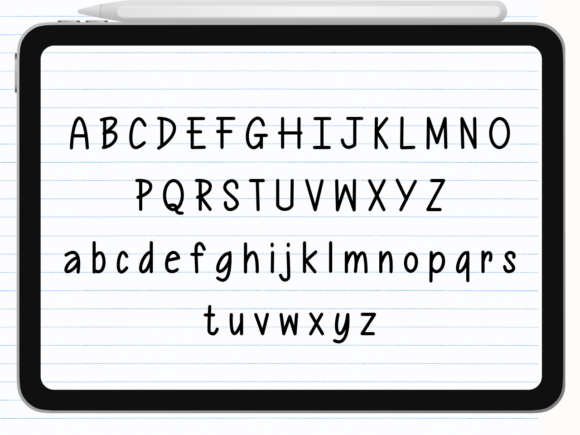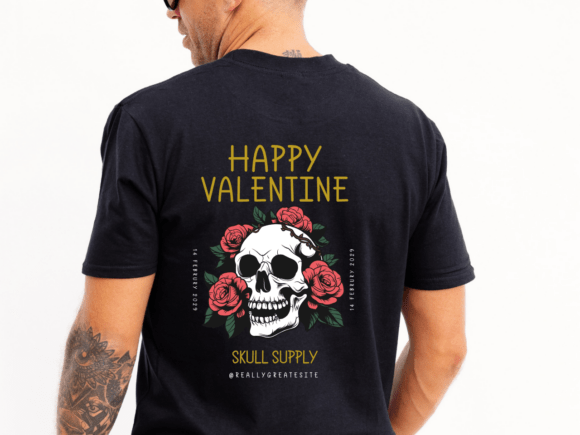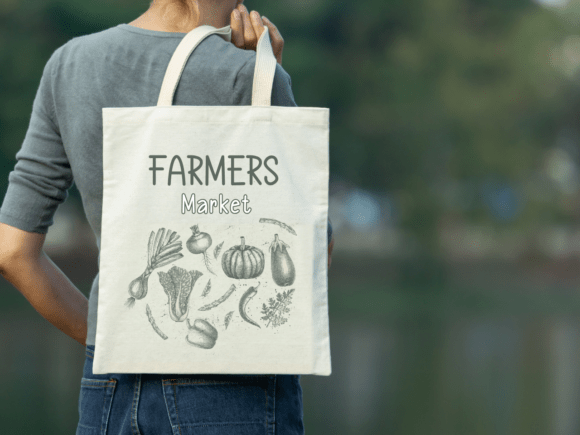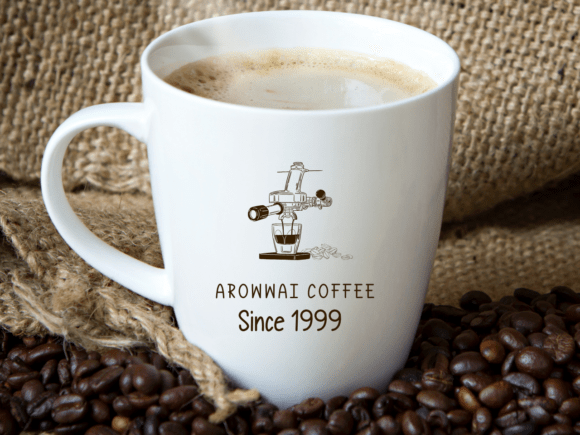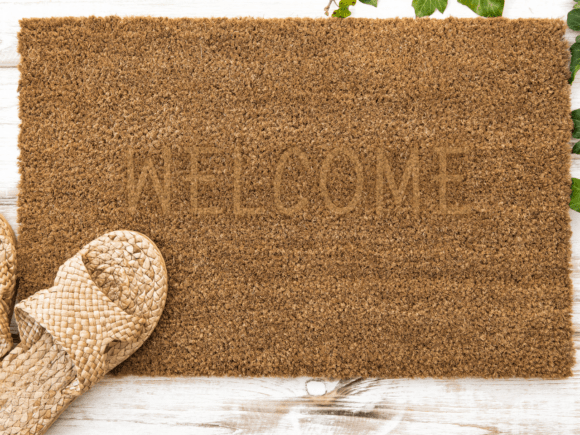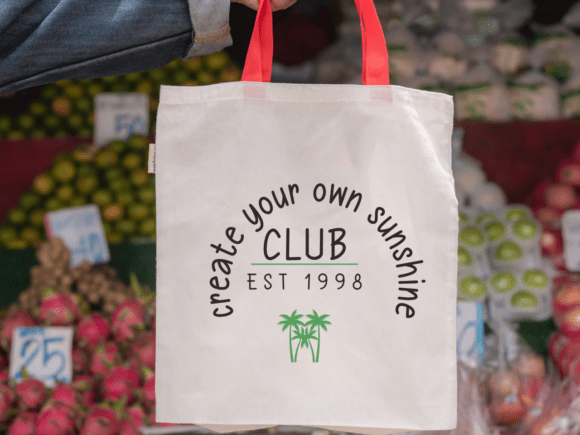
Introducing Ezra Font: A Unique Handwritten Typography Experience
Ezra Font is a beautiful, handwritten font that draws inspiration from the delicate tip of a vine. With its distinctive design, Ezra aims to bring a touch of elegance and individuality to your creative projects. Whether you’re a designer, crafter, or simply someone who appreciates the art of typography, Ezra Font is sure to captivate your audience and set your work apart.
The Concept Behind Ezra Font
The concept of Ezra Font revolves around the idea of creating a font that exudes a sense of uniqueness and character. The designers aimed to craft a font that would not only be visually appealing but also possess its own identity. By drawing inspiration from the natural world, specifically the tip of a vine, Ezra Font was born. The result is a font that is both elegant and quirky, making it perfect for a wide range of applications.
Uses for Ezra Font
Ezra Font is incredibly versatile and can be used in various creative projects, including:
- Letter Design: Add a personal touch to your letters and make them stand out with Ezra Font.
- Greeting Cards: Create beautiful, one-of-a-kind greeting cards for special occasions.
- Wedding Cards: Make your wedding invitations and cards truly unforgettable with Ezra Font.
- Quotes: Highlight your favorite quotes with a unique and eye-catching font.
- Goodnotes and Planners: Add a touch of personality to your digital or physical planners and journals.
- Handwritten Notes: Make your notes and to-do lists more visually appealing.
- Logos: Use Ezra Font to create a distinctive logo for your business or brand.
- Teachers and Educators: Create engaging and interactive learning materials with Ezra Font.
What Sets Ezra Font Apart
Ezra Font’s unique design and characteristics make it an excellent choice for designers and crafters looking to add some flair to their work. Here are a few reasons why Ezra Font stands out:
- Novelty: Ezra Font offers a fresh and distinctive look that will set your work apart from the ordinary.
- Flexibility: Ezra Font can be used in a wide range of projects, from digital designs to physical crafts.
- Elegance: The font’s elegant design makes it perfect for projects that require a touch of sophistication.
The Art of Typography with Ezra Font
Ezra Font is not just a font; it’s an experience. It’s an opportunity to explore the world of typography and create something truly unique. With Ezra Font, you can:
- Experiment with Art Fonts: Ezra Font offers a range of artistic possibilities, allowing you to experiment with different font styles and designs.
- Choose Your Own Font Design: With Ezra Font, you have the freedom to choose the font design that best suits your project and personal style.
Ezra Font is a beautiful, handwritten font that offers a unique typography experience. With its elegant design, versatility, and distinctive character, Ezra Font is perfect for designers, crafters, and anyone who appreciates the art of typography. Whether you’re looking to add a touch of elegance to your work or simply want to explore the world of font design, Ezra Font is an excellent choice. So, dive in and discover the creative possibilities that Ezra Font has to offer!